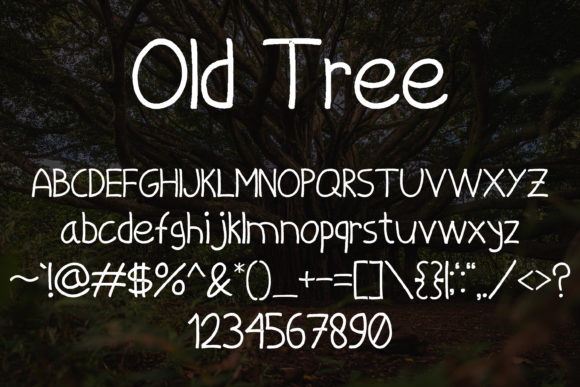
Introduction to Old Tree Font
Have you ever stared at a blank canvas, unsure of where to begin your next creative project? The blank page can be daunting, but sometimes all it takes is the right spark to ignite your imagination. For designers, the perfect design resource can be the difference between a mediocre project and a masterpiece. That’s where the Old Tree Font comes in – a simple yet adaptable handwritten font that has the potential to elevate any creation.
Key Features of Old Tree Font
- High-quality font with intricate details and a vintage touch, perfect for creative projects.
- Features a large character set, including uppercase and lowercase letters, numbers, and special characters, making it a versatile design resource.
- Unique and elegant design, ideal for creating a nostalgic or vintage atmosphere in designs, branding, and packaging materials.
Honest Review: Old Tree Font
As a designer, I’m always on the lookout for high-quality design resources to enhance my creative projects. The Old Tree Font is one such resource that caught my attention, and I’m excited to share my honest review with you.
- ✨ Unique and rustic design aesthetic that’s perfect for vintage-themed projects.
- ✨ High-quality font that’s crisp and clear, even when used on a transparent background.
- ⚠️ Limited character set, which may not be ideal for longer texts.
- ⚠️ Not suitable for projects that require a modern or minimalist design aesthetic.
Overall, I’m impressed with the Old Tree Font, and I’d definitely recommend it to designers working on creative projects that require a vintage or rustic touch. While it may have some limitations, its unique design aesthetic and high-quality rendering make it a valuable addition to any design resource library.
Tips for Getting the Most Out of Old Tree Font
Use Old Tree Font in creative projects, such as invitations, posters, or social media graphics. Experiment with different font sizes, colors, and styles to create a unique look. Additionally, pair the font with other design elements, such as images or icons, to add visual interest.
Old Tree Font is commonly used in design projects that require a vintage or rustic look. It’s also suitable for use in wedding invitations, baby shower invitations, and other special occasion graphics.